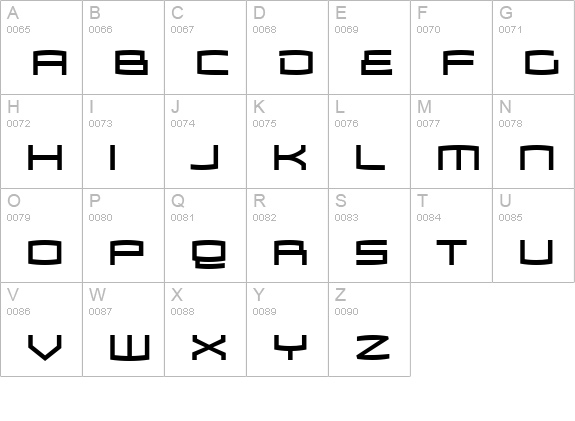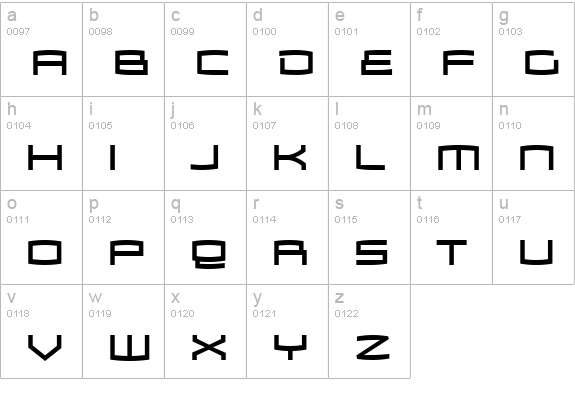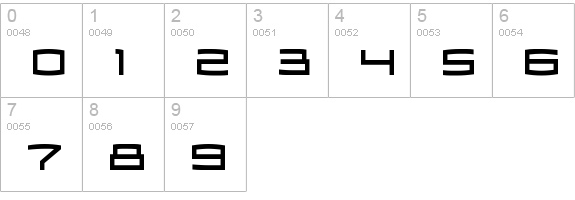
Zosma Font Details
Zosma font is a beautifully crafted typeface that exudes elegance and sophistication. With its clean lines and modern aesthetic, Zosma is perfect for a wide range of design projects, from branding to editorial design. The font features a unique combination of sharp angles and rounded corners, giving it a contemporary yet timeless feel. What sets Zosma font apart is that it is not only visually stunning but also completely free to use. Yes, you read that right - this high-quality font is freely available to download at FontsMarket.com. Whether you're a professional designer or just looking to add a touch of style to your personal projects, Zosma font is the perfect choice. Don't miss out on the opportunity to enhance your designs with this versatile and eye-catching typeface. Download Zosma font today and let your creativity shine!